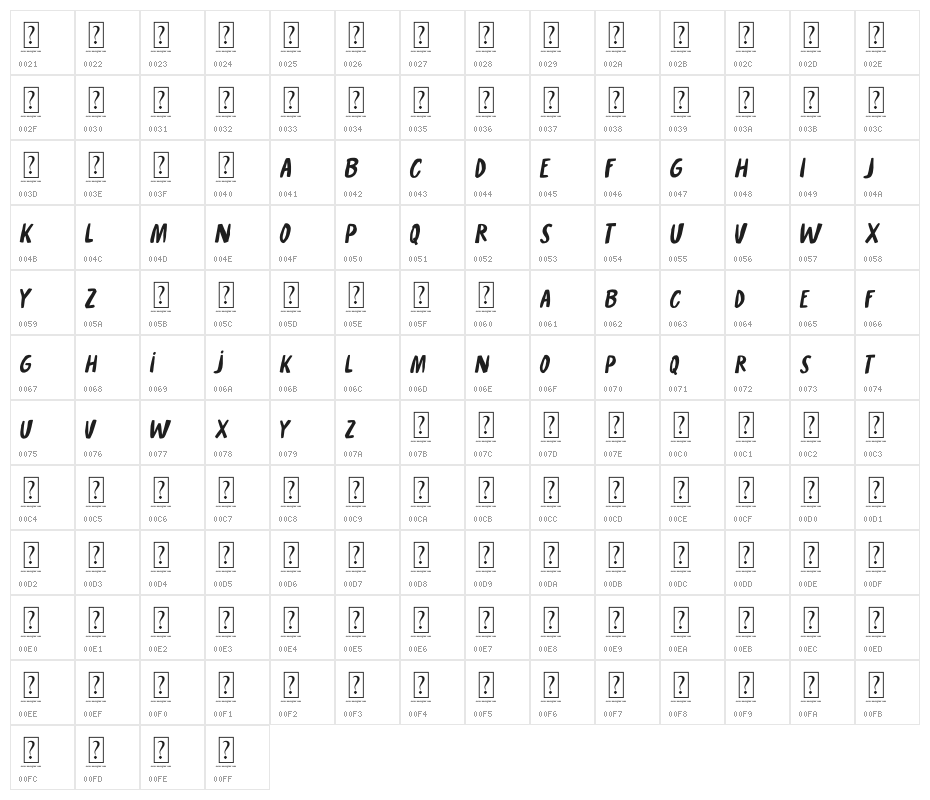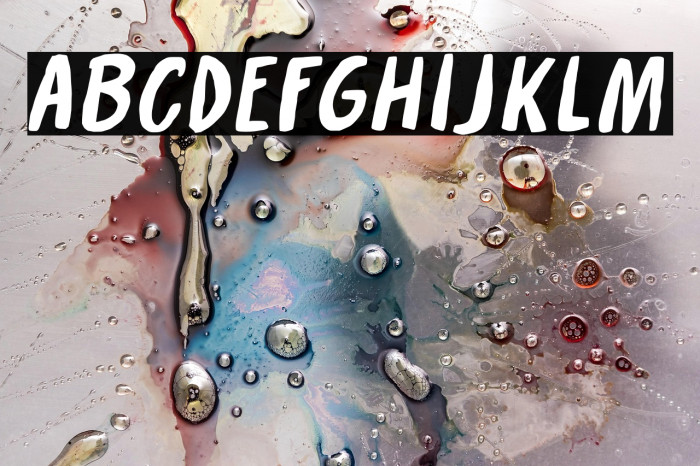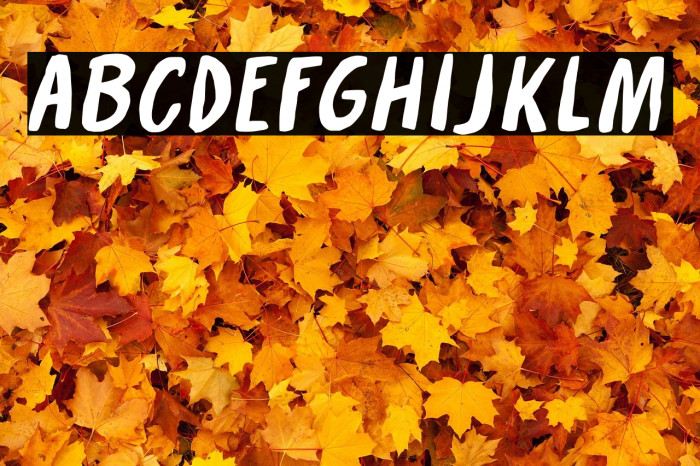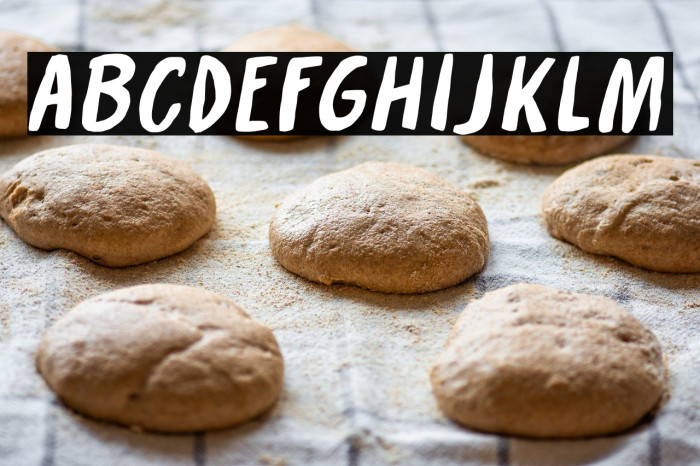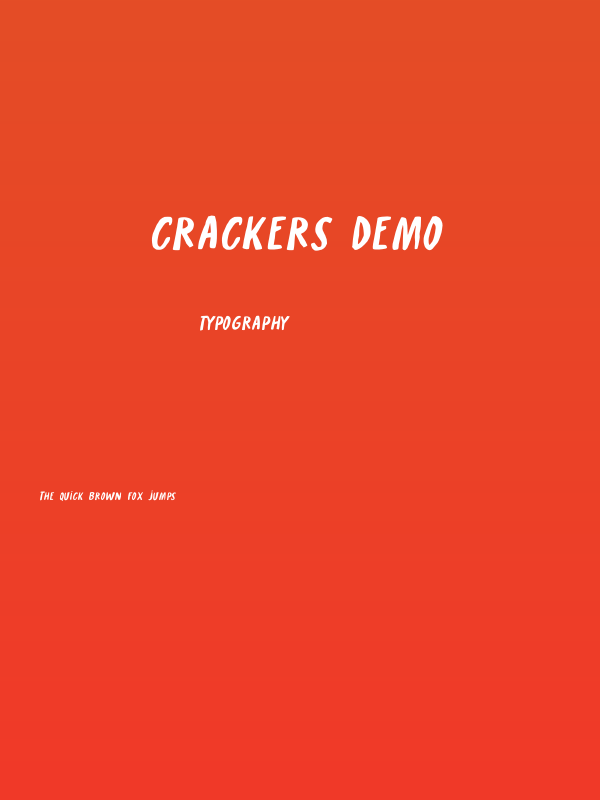
Crackers Demo Font
Crackers Demo Description
This font features a bold and dynamic handwritten style, characterized by its energetic and slightly irregular strokes. The letters have a playful and casual appearance, with varying thickness that adds a sense of movement and personality. The uppercase letters are prominent and expressive, making them suitable for attention-grabbing headlines or creative designs. The lowercase letters maintain the same lively style, ensuring consistency across different text elements. Overall, this font exudes a sense of fun and creativity, making it ideal for projects that require a personal and informal touch.
| Proposed Projects | Ideal for creative projects such as posters, invitations, branding, and social media graphics that require a personal and informal touch. |